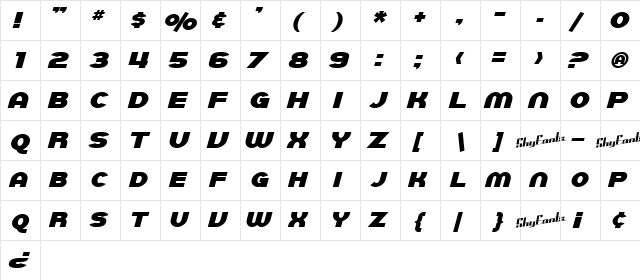
SF Juggernaut Bold Italic
Design Context for SF Juggernaut Typeface
SF Juggernaut offers clean, dependable letterforms without strong stylistic allegiance, making it a practical choice for designers who need flexibility. The slanted form adds forward momentum and visual energy. Its bold stroke weight gives it real presence on the page.
Pro Tip: Use SF Juggernaut for emphasis, pull quotes, and subheadings where its slanted energy can add rhythm to the layout.